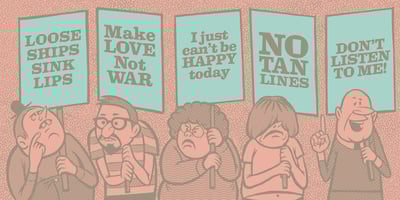
Ernie
Ernie font
Ernie Font Family was designed by Jim Ford and published by Jim Ford. Ernie contains 3 styles and family package options. Ernie is a new animated typeface by Jim Ford, intended as a complimentary serif design to Freeman Craw’s fun retro hit, Ad Lib. The serif drawings mimic the behaviors of Ad Lib, on a Clarendon-esque structure. The application of Ad Lib’s behaviors to a serif design highlights it’s quirky characteristics; notably in the added contrast, the bending of serifs and the translation to Ernie’s ball terminals. The lowercase g is probably the most extreme example of this “translation.” Ernie has a savvy system of text animation built in; with dualing lowercase alphabets, 34 ligatures, and an extensive glossary of custom words, all programmed to automatically make intelligent pseudorandom wordshapes. It’s called RMS, aka the Randomagic System. The glossary of “buzz” words is based on the most common and powerful words in marketing and advertising, as well as words that are specific to Ernie’s intended uses.. Additionally, Ernie Alt provides the opposite randomization effects in lowercase text, thus reversing the rhythm of the bounce. Ernie Sorts is a bonus font which includes fun printers fists, expandable banners and other graphic elements. The Ernie character and cartoons were created by Johnny Sampson, as a visualization of the typeface, it’s character and it’s unique features.